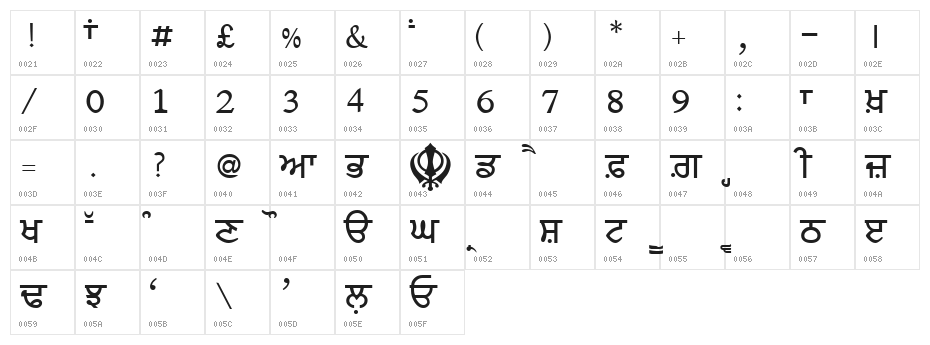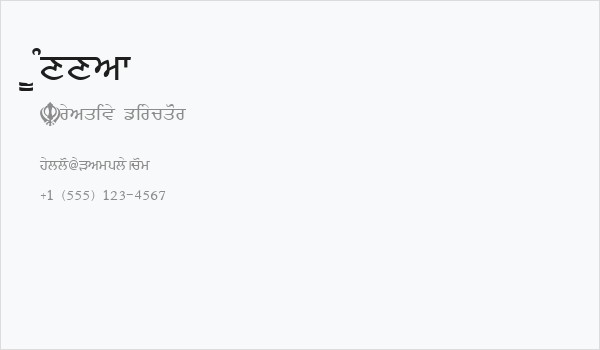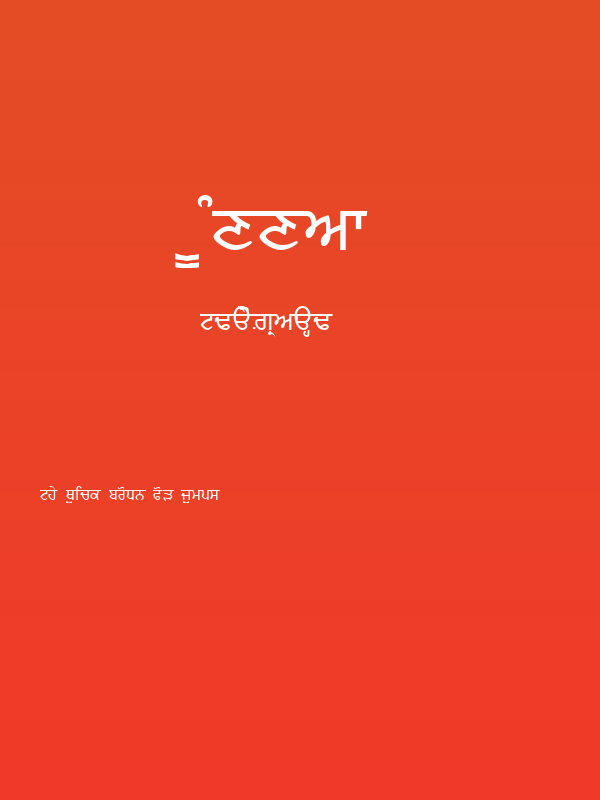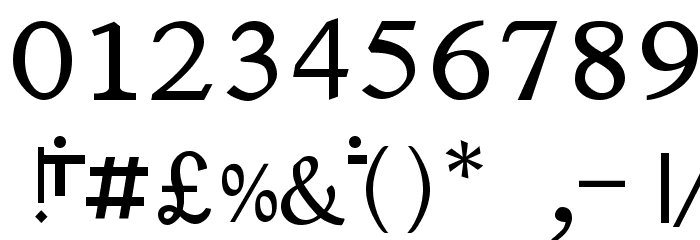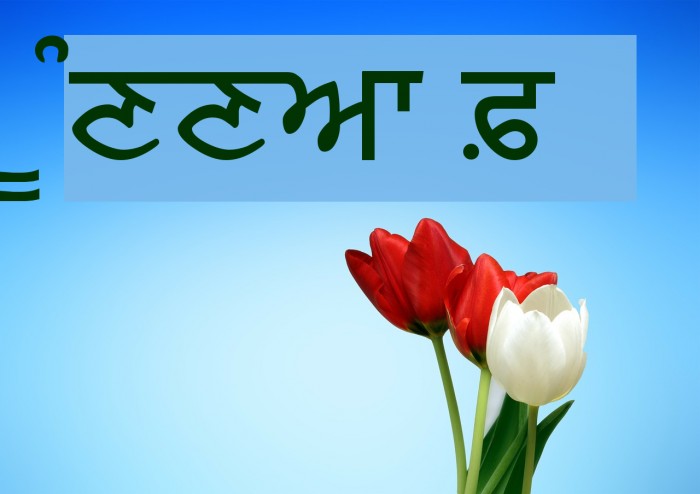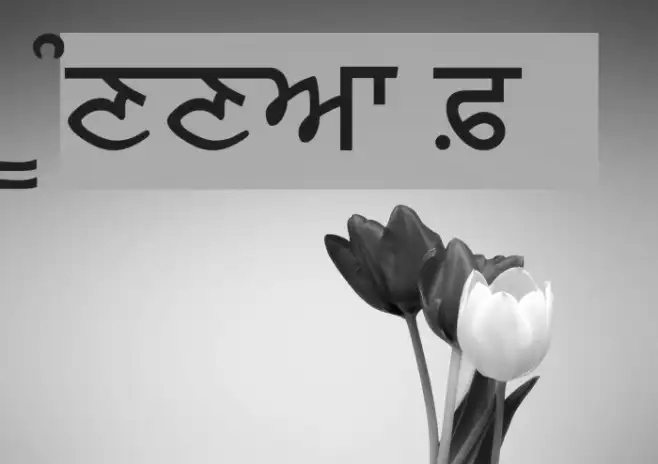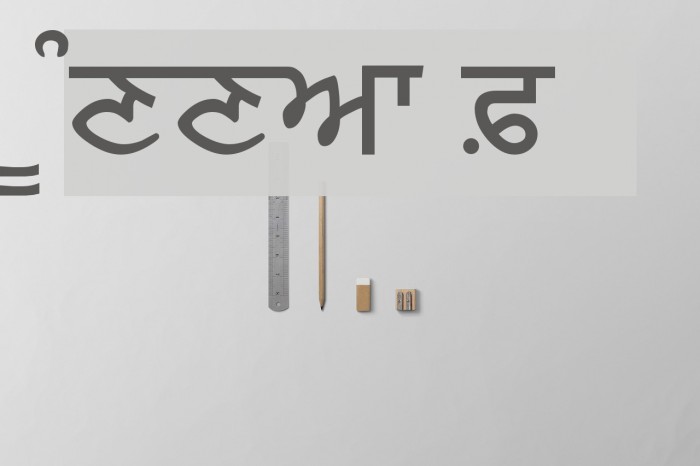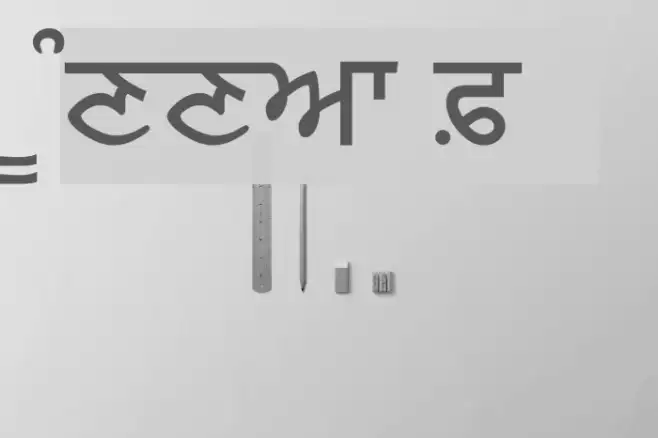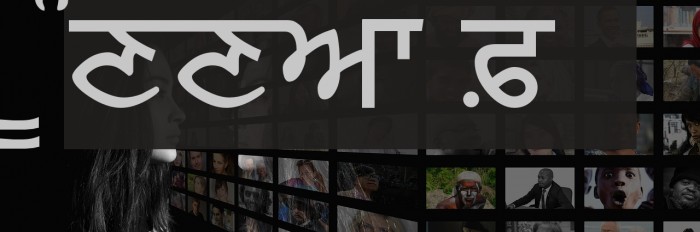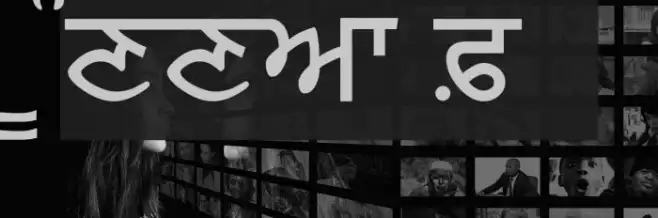
MUNNA Font
MUNNA Description
This font features a distinctive and bold design, characterized by its strong, angular strokes and a sense of cultural heritage. The characters are crafted with a high level of detail, showcasing a blend of traditional and modern elements. The numerals are clear and well-defined, while the special characters add a unique flair to the overall appearance. This font is versatile, suitable for both digital and print media, and can effectively convey a sense of tradition and modernity.
| Use Case | Headlines, Logos, Signage |
| Proposed Projects | Ideal for cultural projects, branding, signage, and editorial design. |